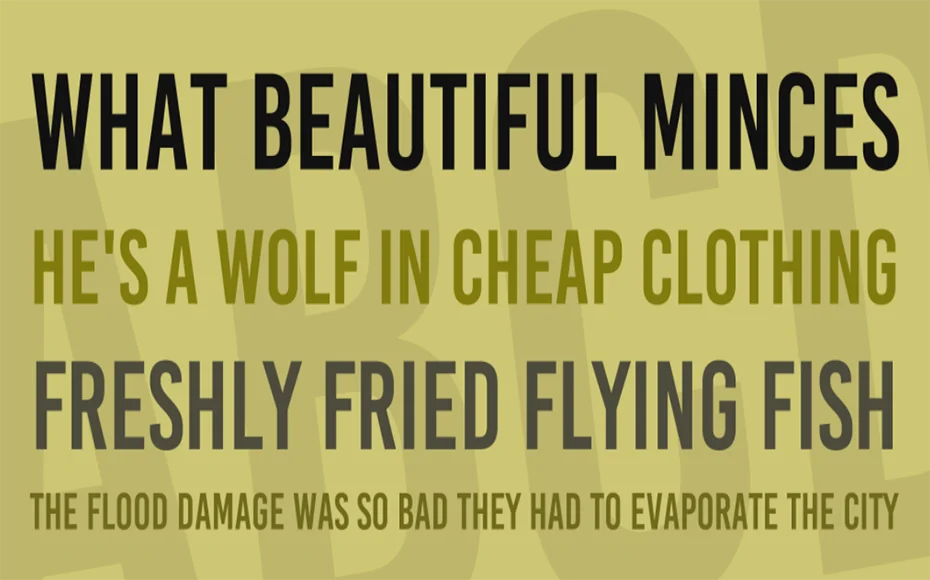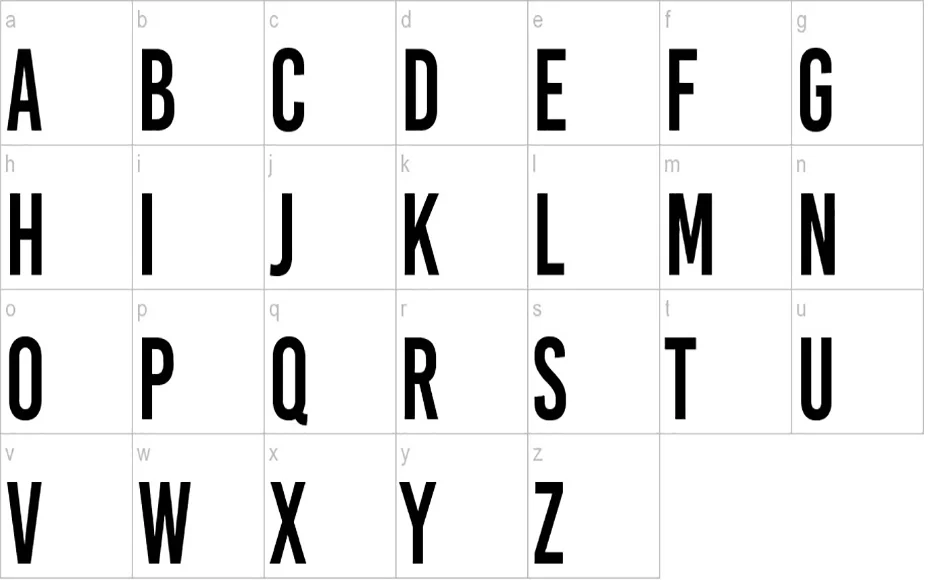
Bebas Kai Font is a basic sans serif typeface that can be used for a number of different purposes. It’s all-caps, so it is effective for headlines, advertisements, apparel, merchandise, packaging, and more.
A famous Japanese font foundry Ryoichi Tsunekawa is known as the primary designer of this font. This is a free display font created by Bold Stroke.
The height of this font is larger than the standard size. While the width feels less than the standard size. But only because of the great height.
And The corners of this typeface are in cubic shape because it is a sans serif font. Also, it has a good foundation that adds professionalism to this font.
Font Name: | Bebas Kai Font Family |
Style: | Basic, Sans Serif, Display |
Font Designer: | Ryoichi Tsunekawa |
Because of its bold letters, you only use it in titles and large text. For short text or paragraphs, you definitely need some other fonts.
You can use it for making a logo, banners ads, book layouts, brochure making, branding, t-shirt printings, label designs, official cards, business card designs, advertisements, apparel, merchandise, packaging, and more.